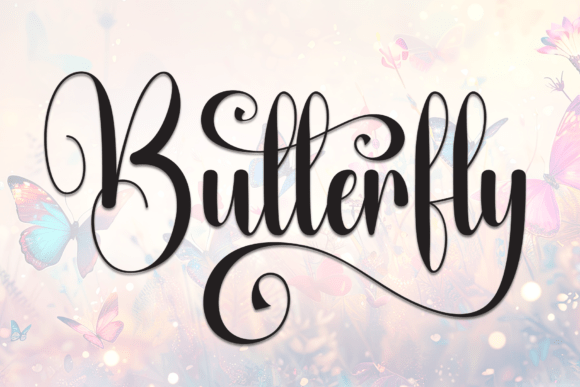
The Magic of Butterfly Font: Elevate Your Designs with Elegance
What is Butterfly Font?
Butterfly Font is a romantic modern calligraphy typeface designed with decorative swashes, smooth loops, and high thick-thin contrast. This elegant font is perfect for creating statement wordmarks, wedding suites, boutique logos, packaging, and social quotes. Its balanced spacing and generous ascenders ensure that it remains readable, even at smaller sizes.
Here’s what I love about Butterfly Font:
- ✨ Elegant swashes and smooth loops that add a touch of sophistication to any design
- ✅ High thick-thin contrast for a beautiful, handwritten feel
- ✅ OpenType alternates and ligatures for endless customization options
While Butterfly Font is an amazing addition to any designer’s toolkit, there are a few small quirks to be aware of:
- ⚠️ Some users may find the font a bit challenging to read at very small sizes (less than 10pt)
- 🤔 The font’s decorative swashes may not work well with all design styles or color schemes
Butterfly Font was designed with the intention of creating a beautiful, modern calligraphy script that would add a touch of elegance to any design. The designer aimed to create a font that would be both romantic and sophisticated, with a high level of customization options. The result is a font that is perfect for designers, crafters, and creative hobbyists looking to add a touch of whimsy to their designs.
| Is Butterfly Font suitable for body text? | While Butterfly Font is beautiful for headings and titles, it may not be the best choice for body text due to its decorative nature and potential readability issues at small sizes. |